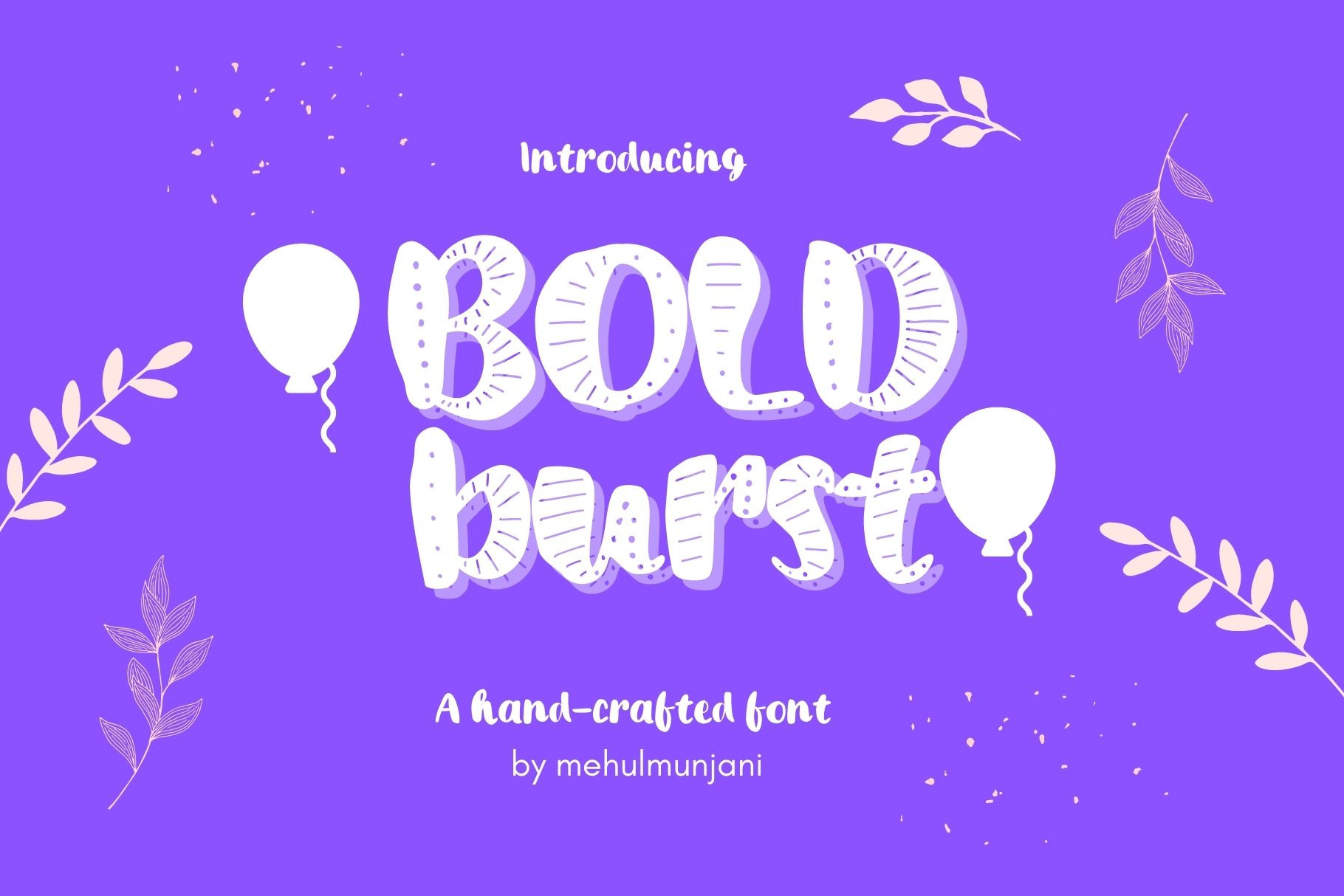
Bold burst decor script font
Bold Bust Decor Handcrafted font is a fun and playful font family that can add a touch of whimsy to any design. The font features unique, handcrafted letterforms that are bold and attention-grabbing. It's a versatile font that can be used for a variety of design projects, from invitations and posters to logos and branding.
What makes Bold Bust Decor Handcrafted font stand out is its playful aesthetic. Each letterform is crafted with care, giving it a handmade feel that is both charming and fun. The font's bold weight ensures that it will stand out in any design, while its handcrafted appearance adds a touch of personality and warmth.
Whether you're designing an invitation for a children's birthday party, creating a fun poster for a local event, or developing a playful logo for a new business, Bold Bust Handcrafted font is the perfect choice. Its playful nature is sure to add a touch of joy and whimsy to any design project, making it a font that designers will love to use time and time again.